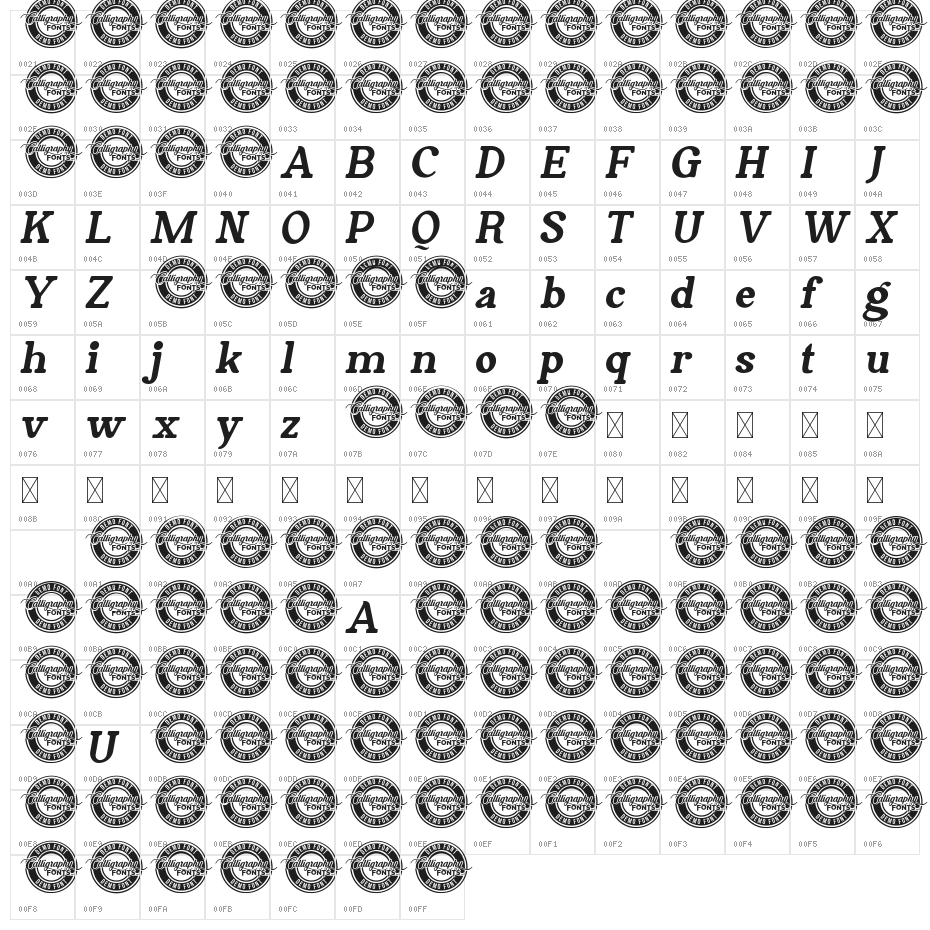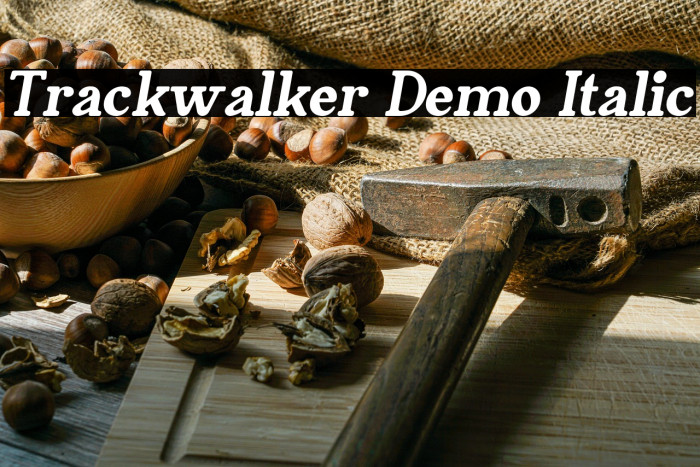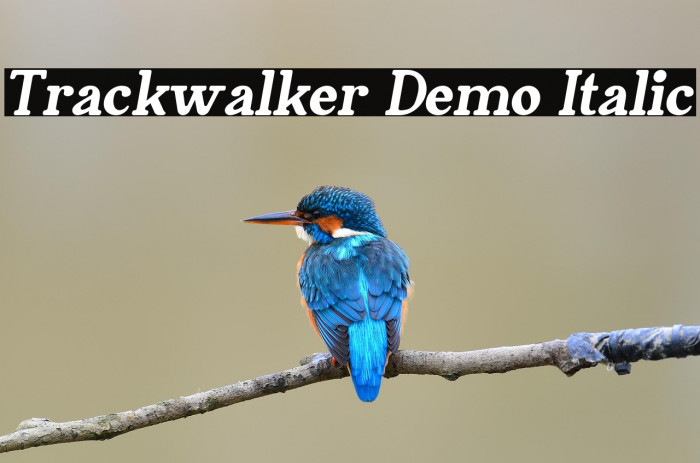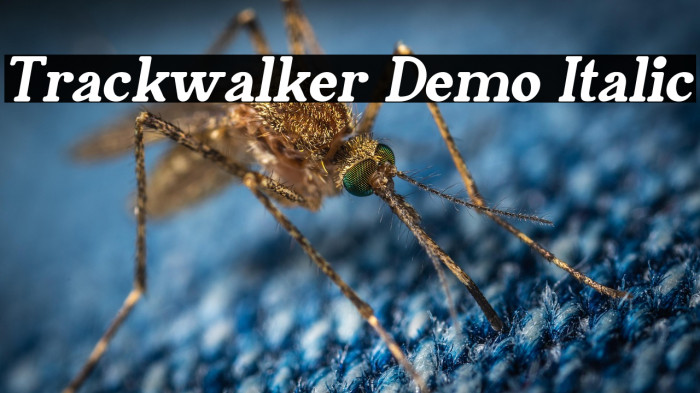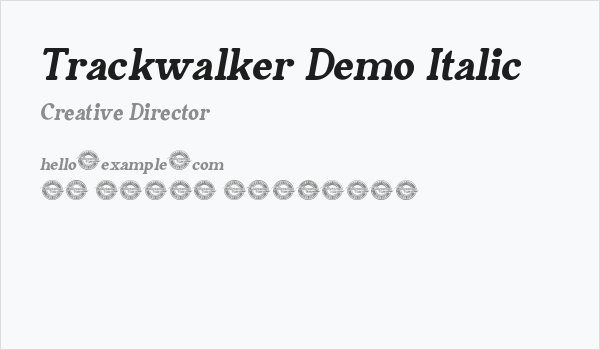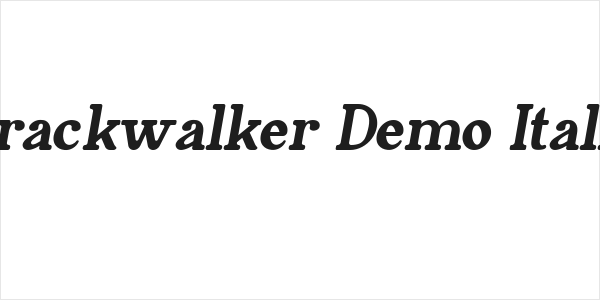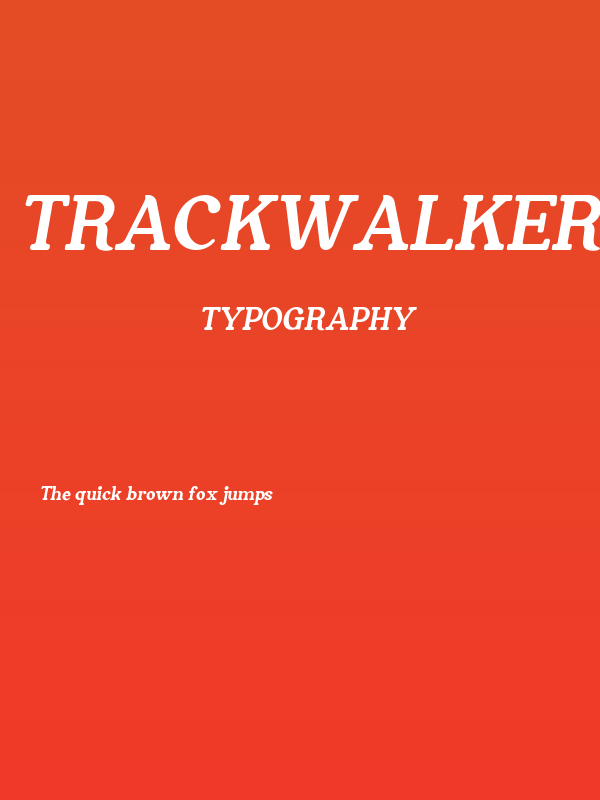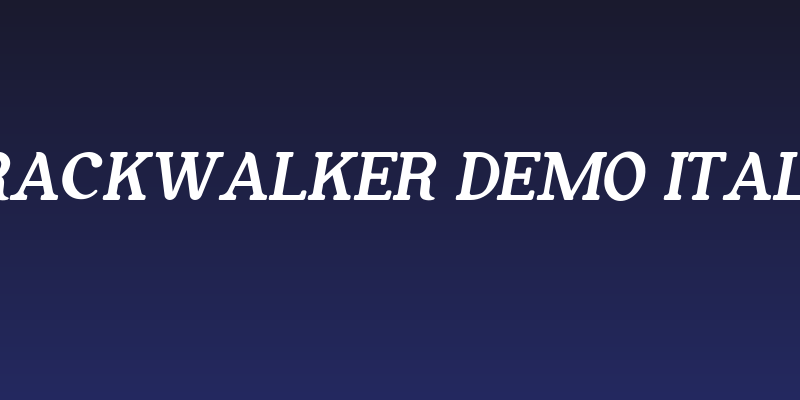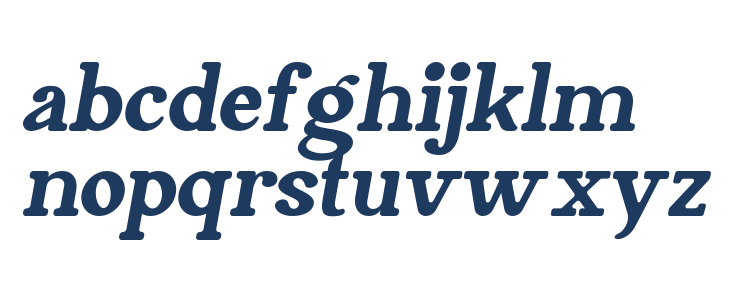
Trackwalker Demo Italic Font
Trackwalker Demo Italic Description
This font features a classic serif style with a distinct italic slant, giving it an elegant and sophisticated appearance. The uppercase letters are bold and commanding, while the lowercase letters maintain a smooth and flowing form. The numerals are clear and well-defined, ensuring readability. Special characters are included, adding versatility for various design needs. The overall design is reminiscent of traditional calligraphy, making it suitable for projects that require a touch of elegance and formality.